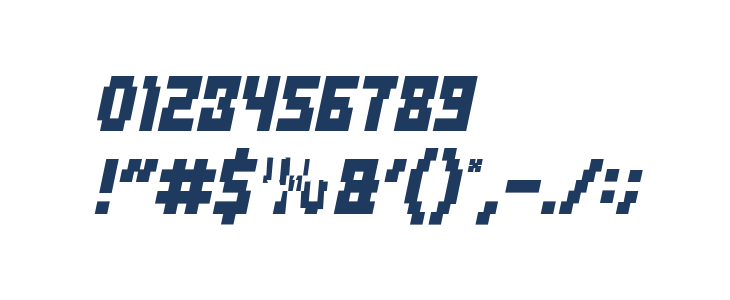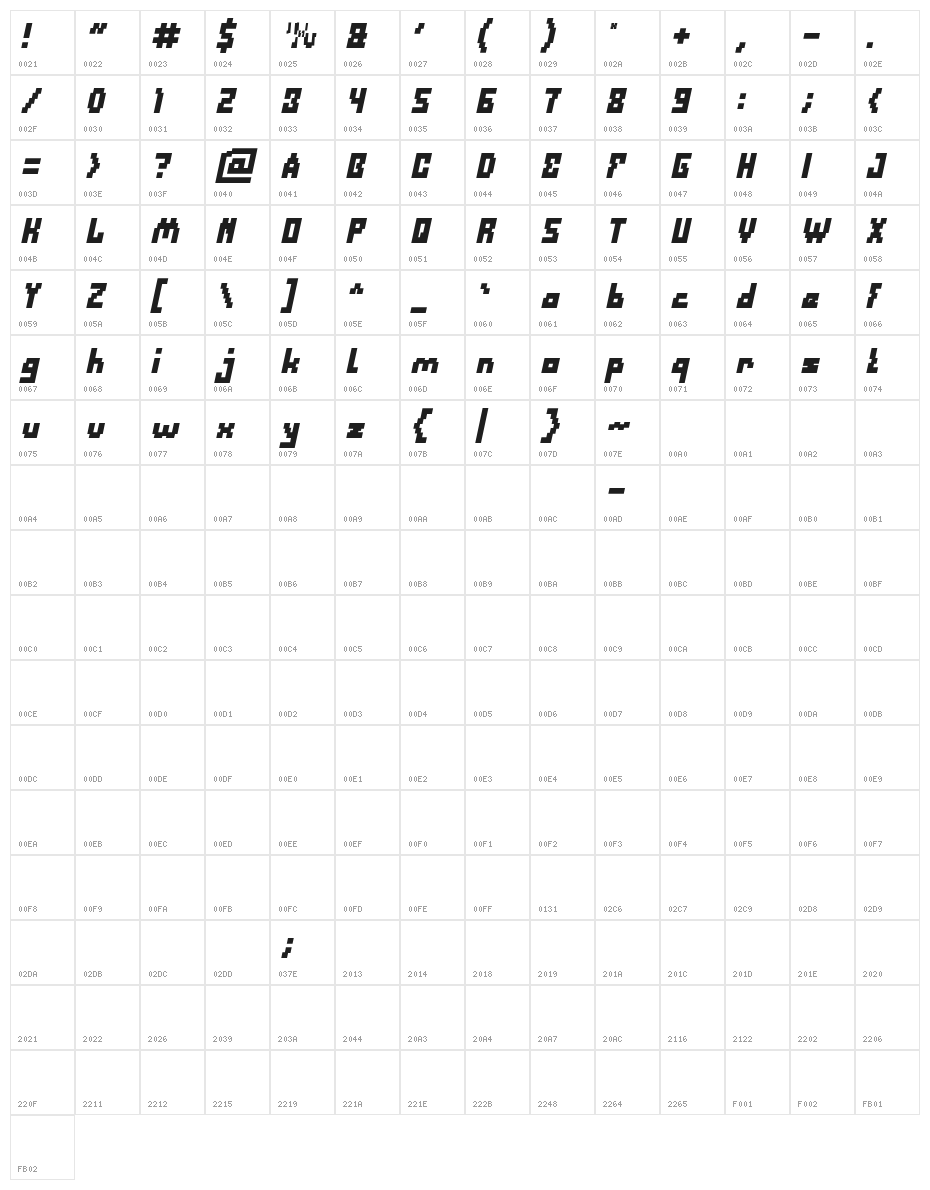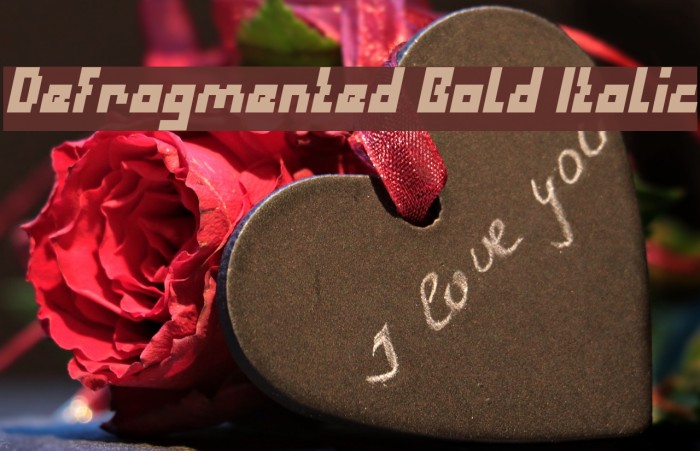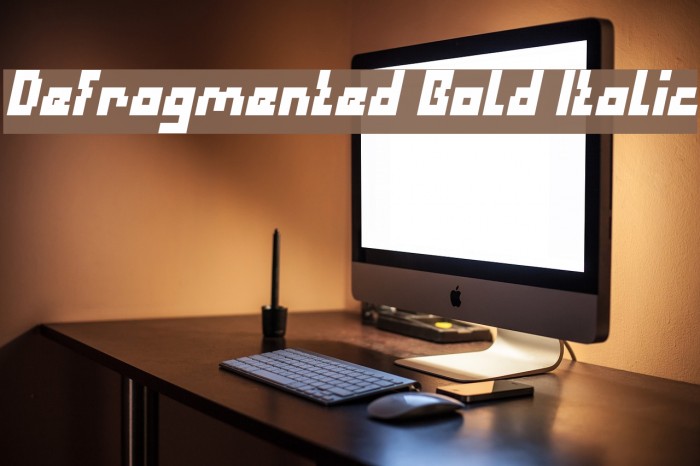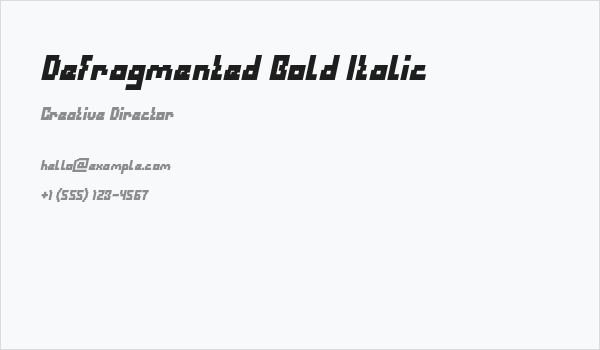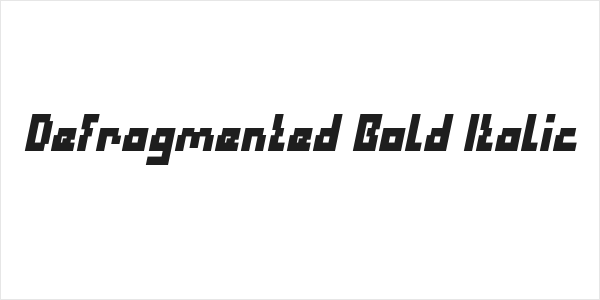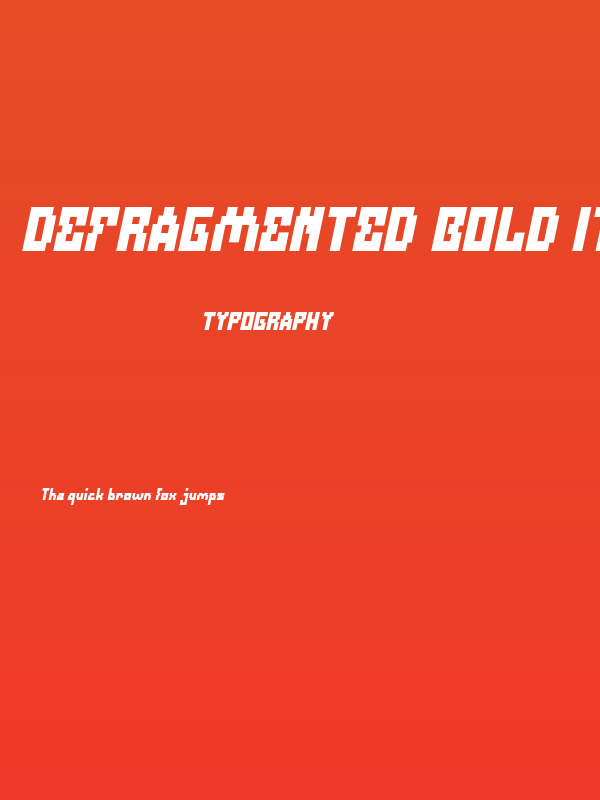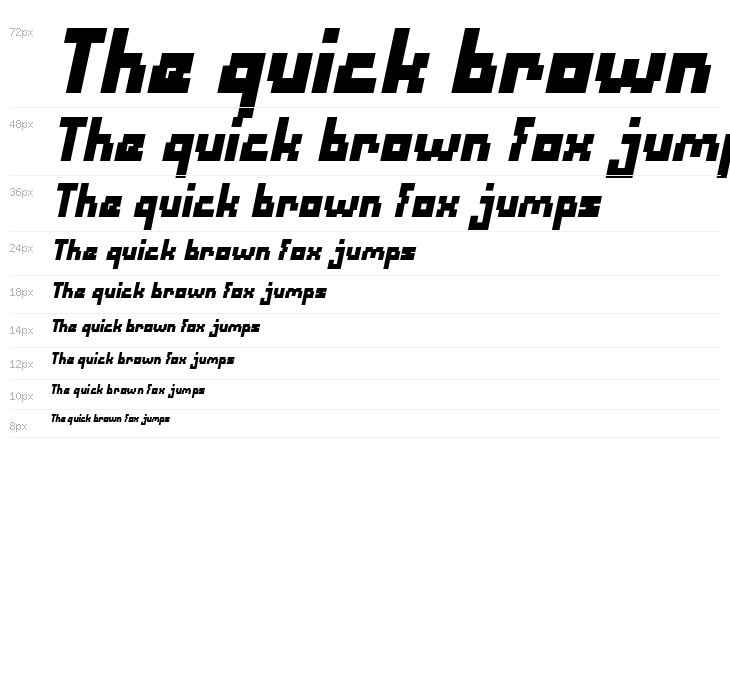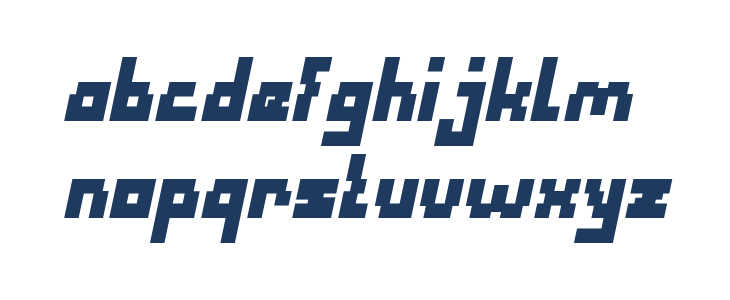
Defragmented Bold Italic Font
Defragmented Bold Italic Description
This font features a bold and italicized style with a distinct geometric and fragmented appearance. The characters are constructed with sharp angles and straight lines, giving it a digital, futuristic feel. The uppercase and lowercase letters maintain a consistent height, while the numbers and special characters follow the same angular design. The overall look is striking and modern, making it suitable for attention-grabbing headlines or creative projects that require a tech-inspired aesthetic.
| Proposed Projects | Ideal for digital art, gaming interfaces, tech branding, and futuristic posters. |